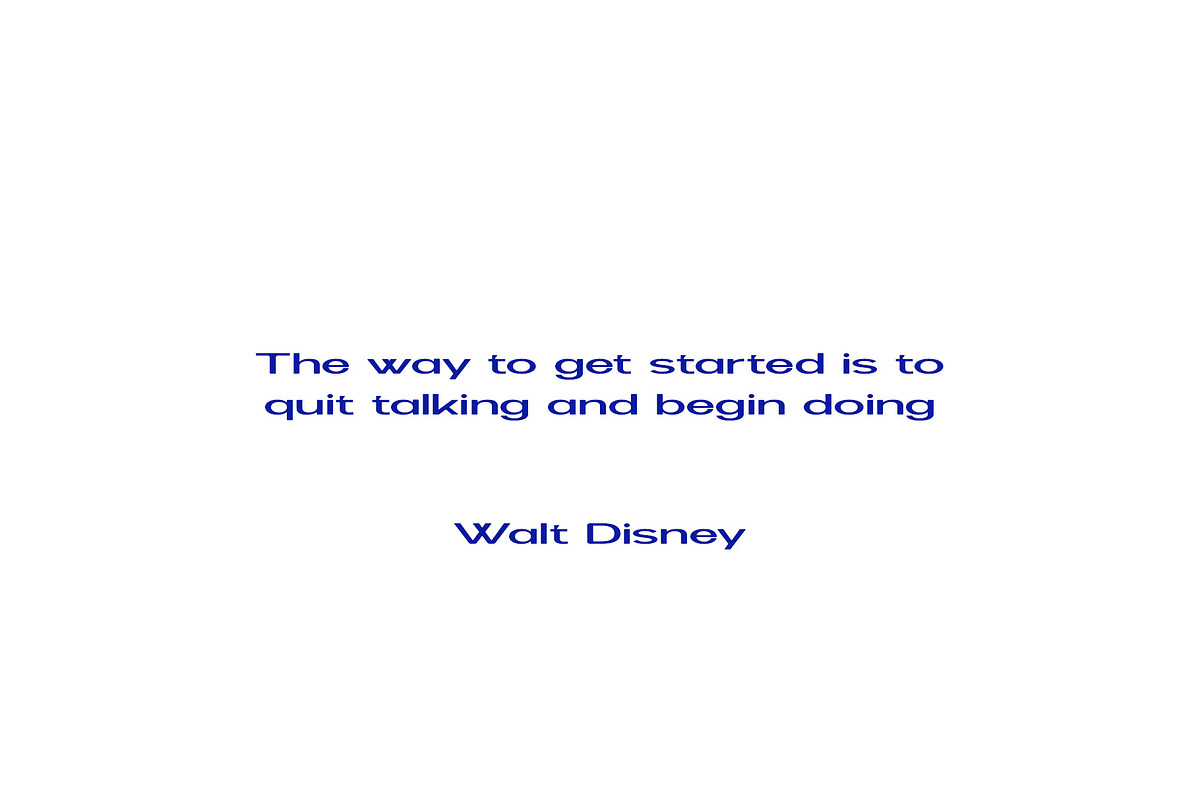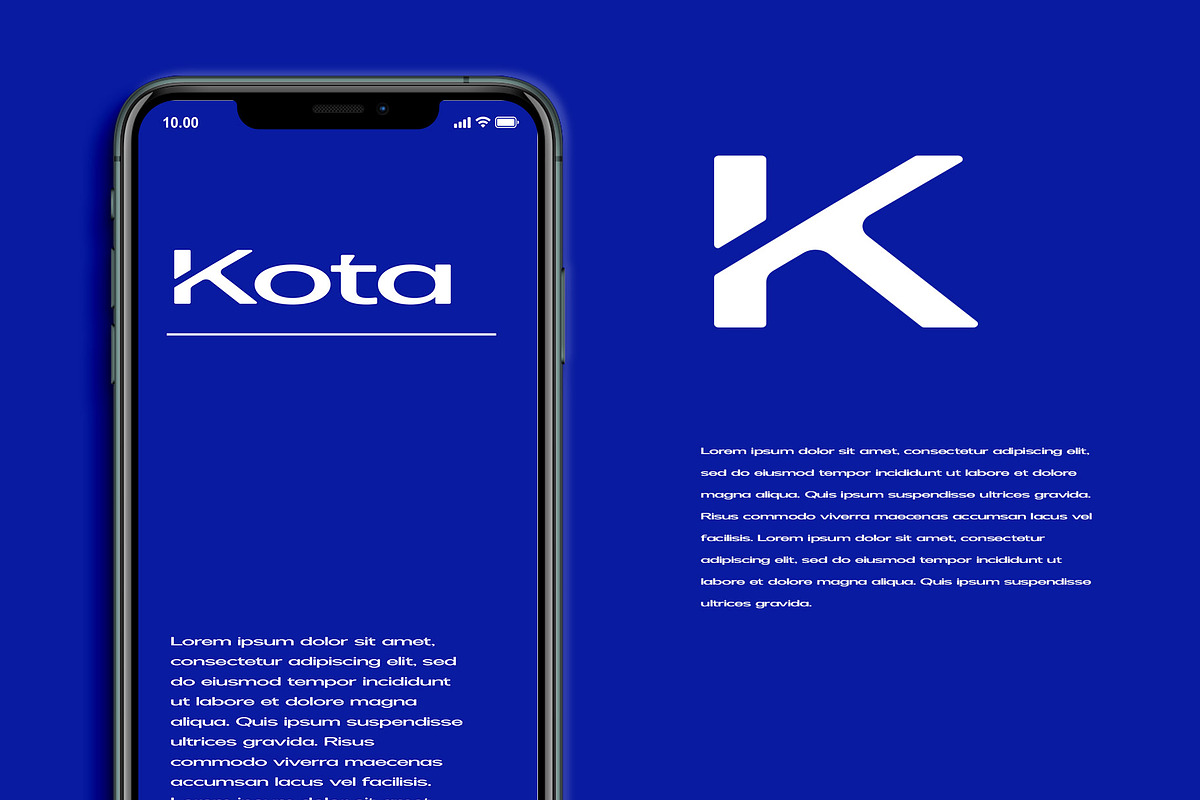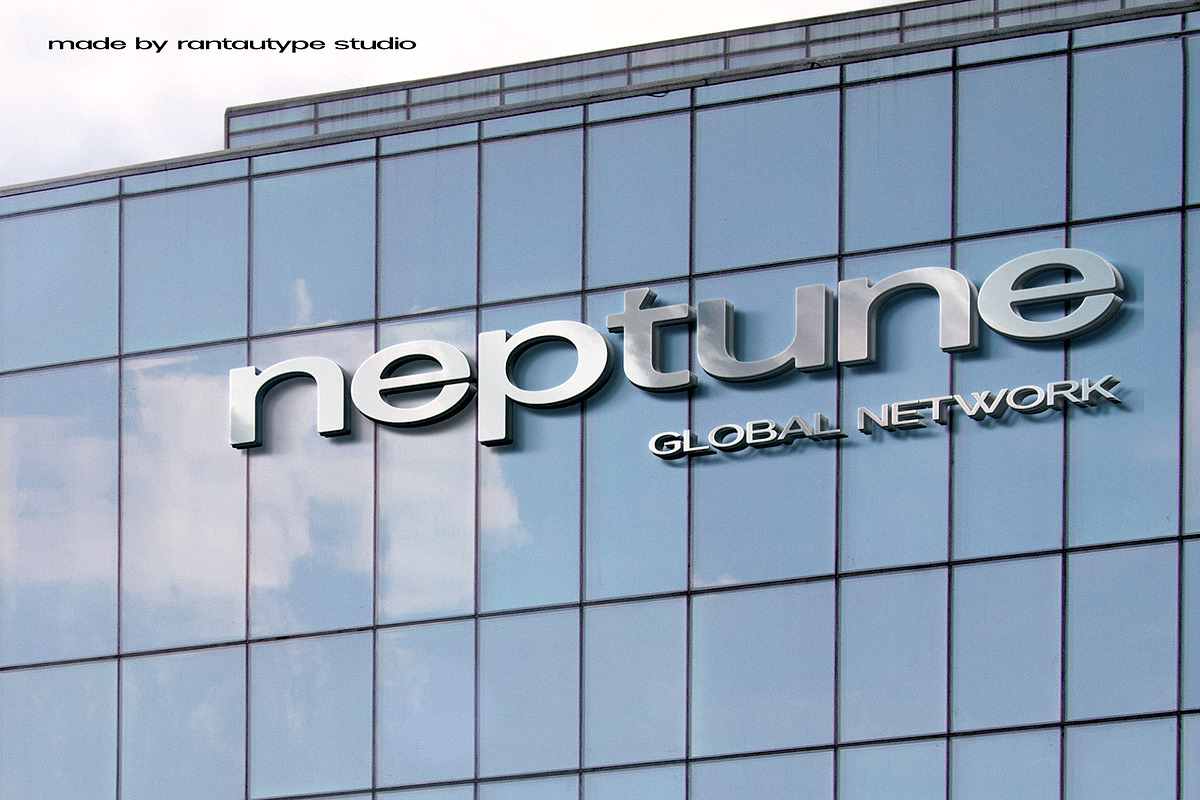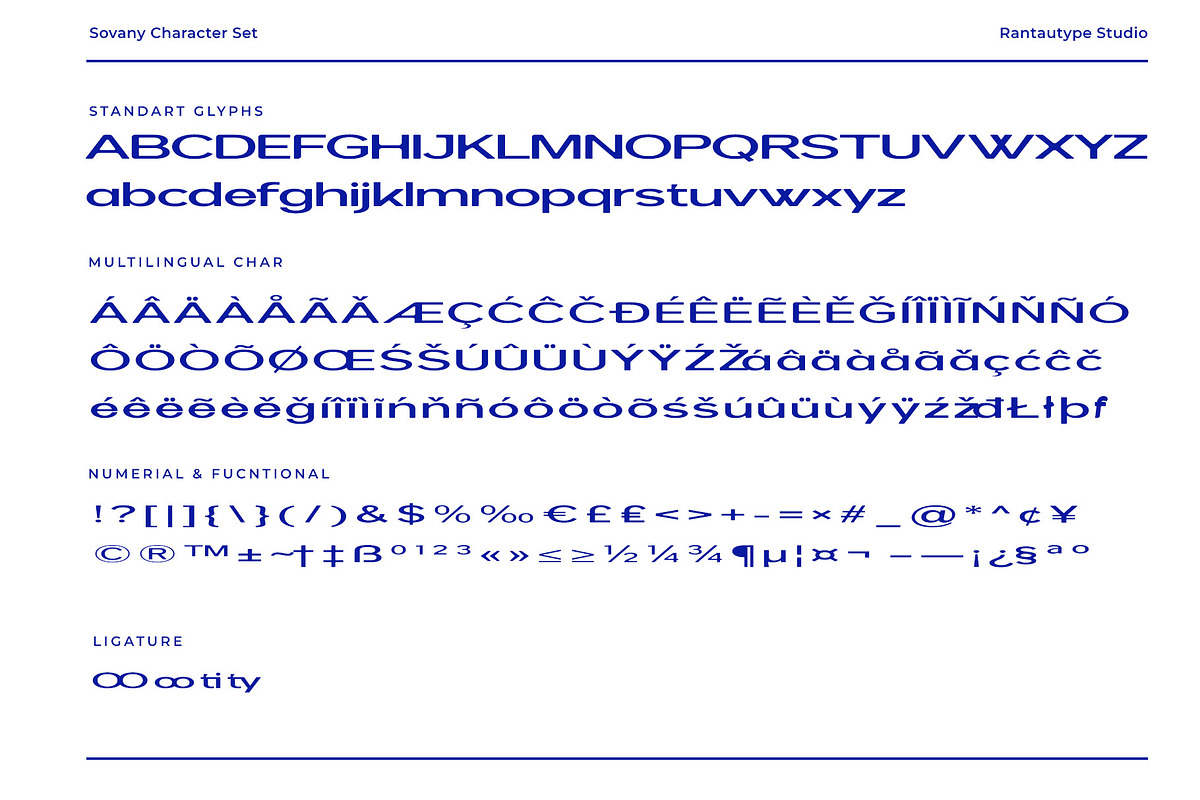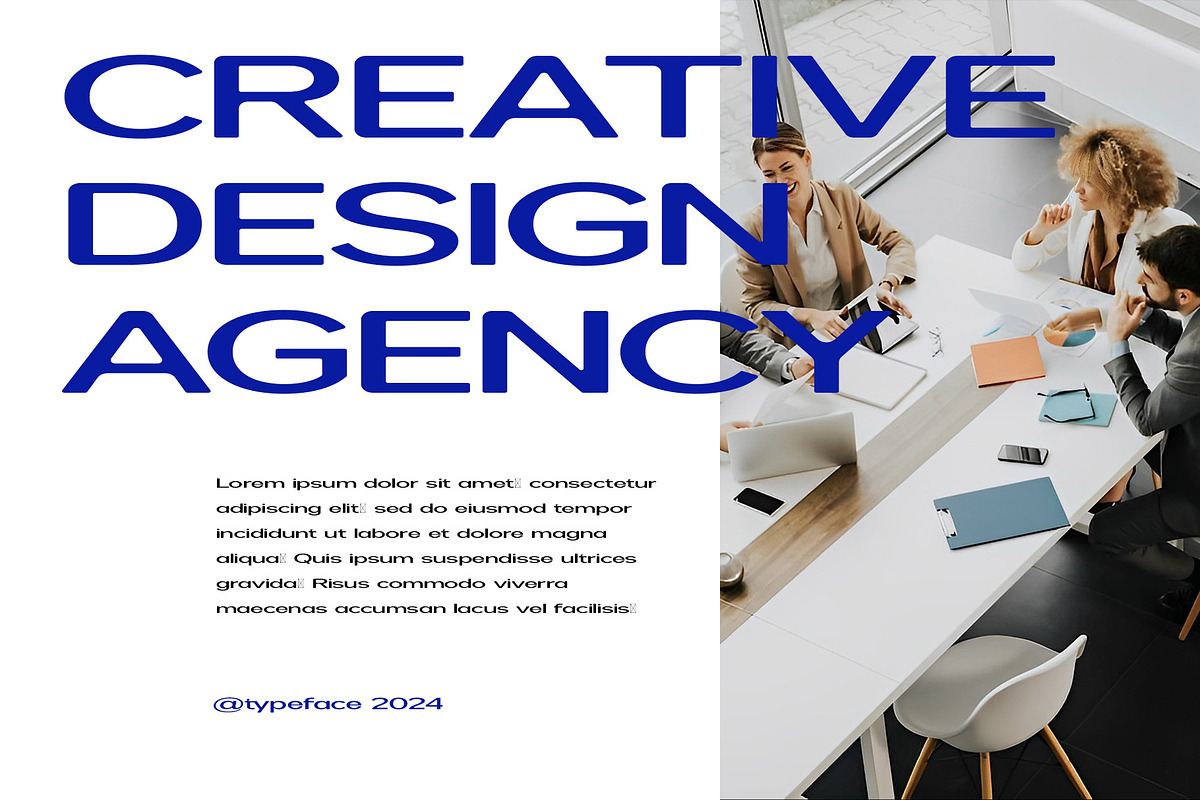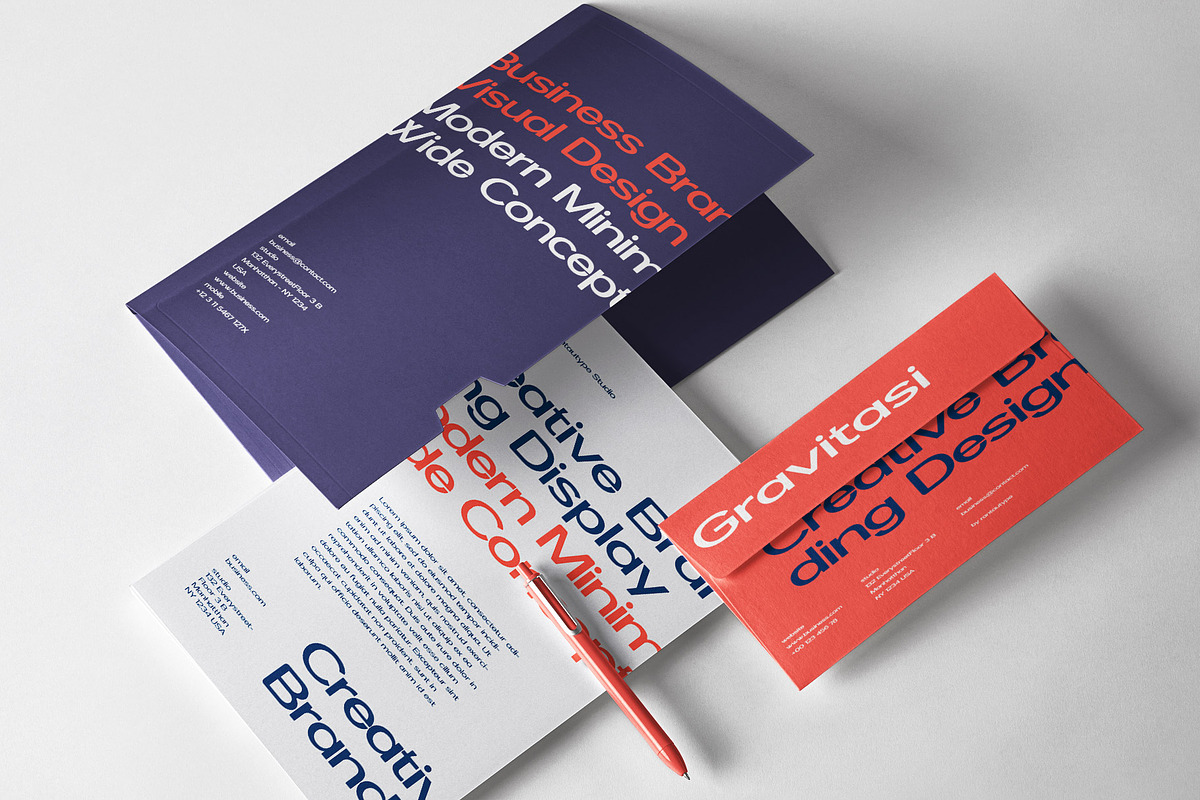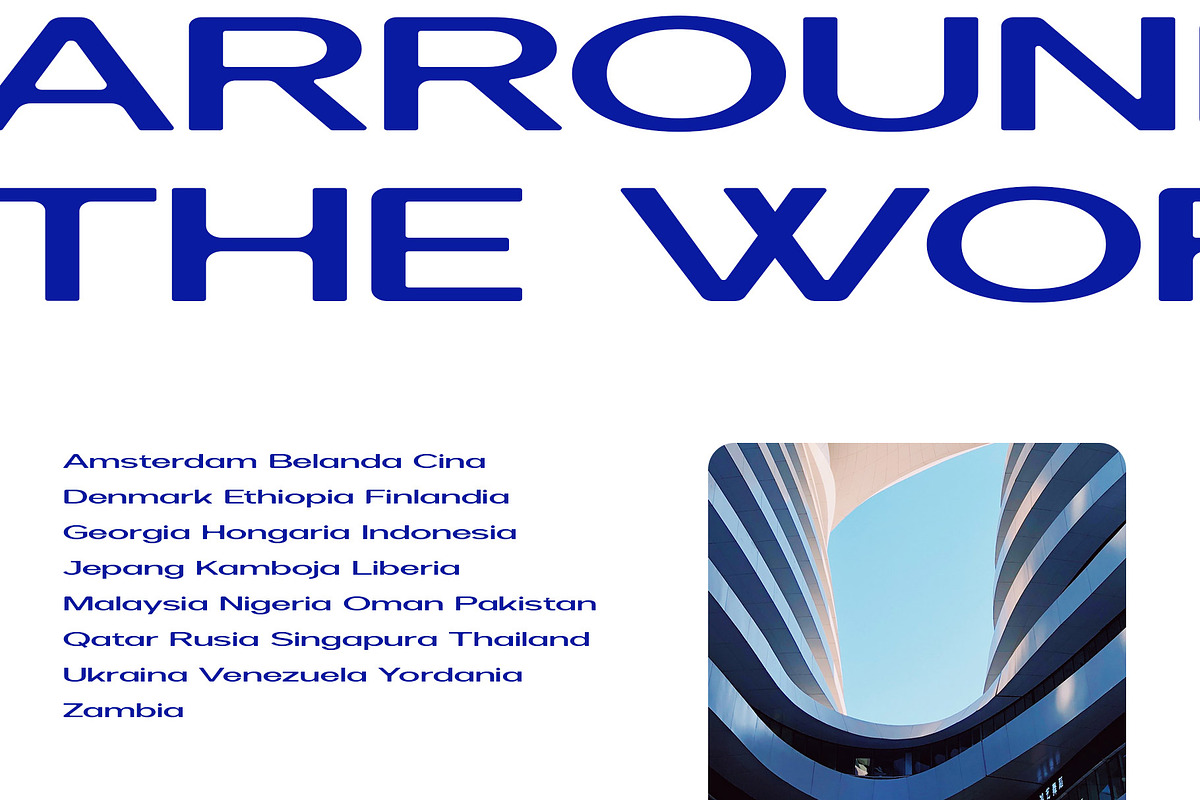
Sonety Modern Wide Sans Typeface
Sonety is modern sans typeface with wide geometric details and deep in industrial design principles. Sonety come to help you make design project more attractive and eye catch.
Sonety is a perfectly choice for any creative endeavor, chic, lifestyle design such as logos, advertisements, watermark on photography, stationery, branding project, display and magazine, invitation, corporate brand, product design, label, business project and many other project with industrial touch.